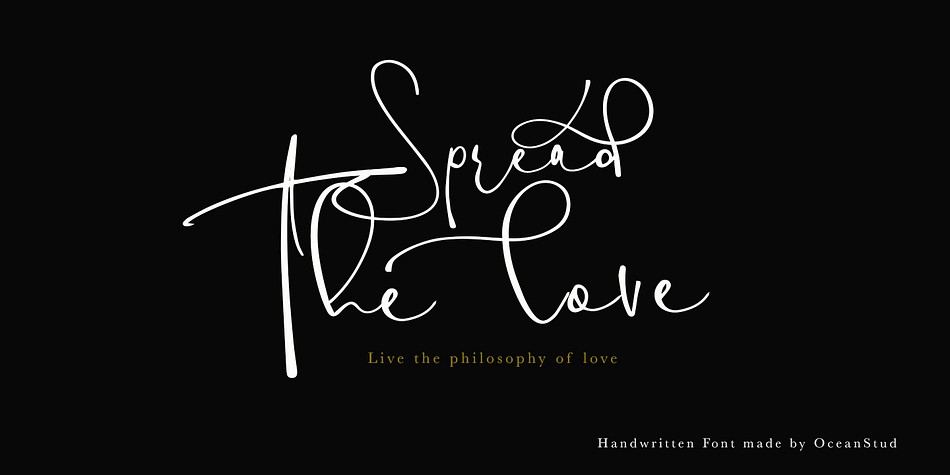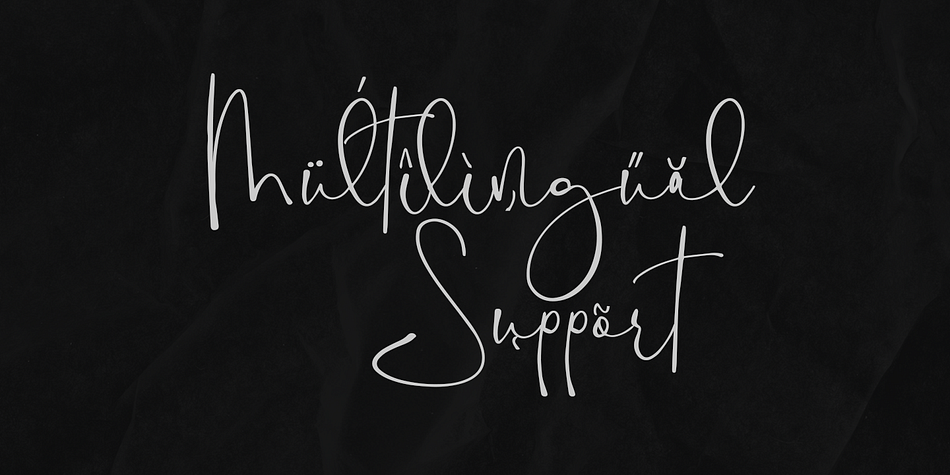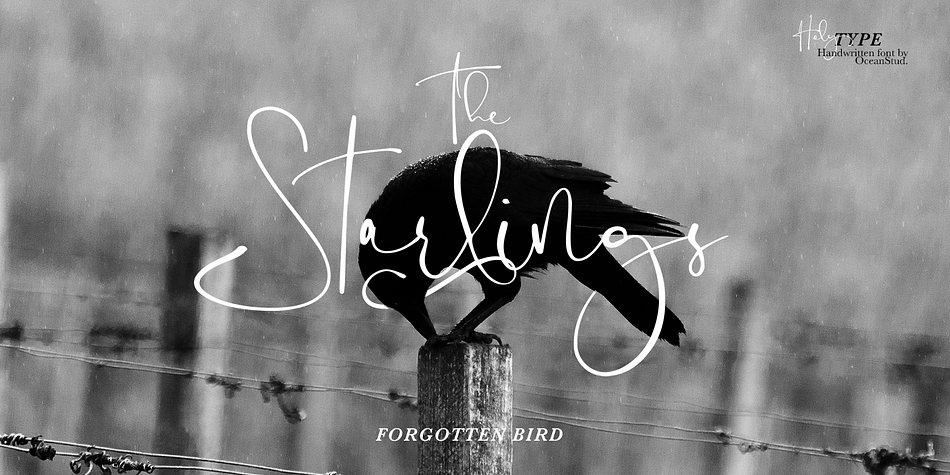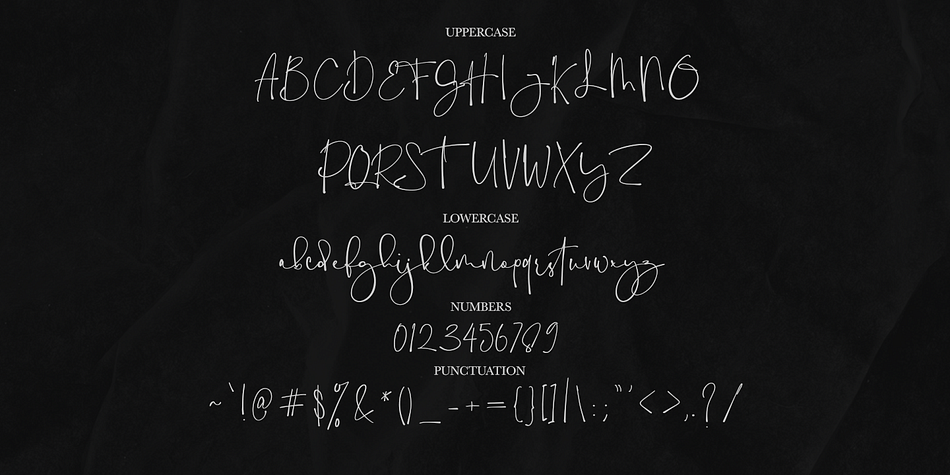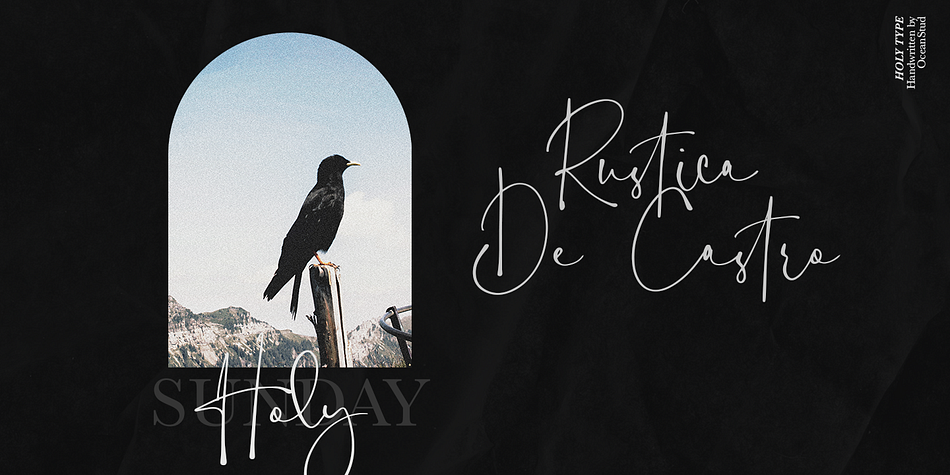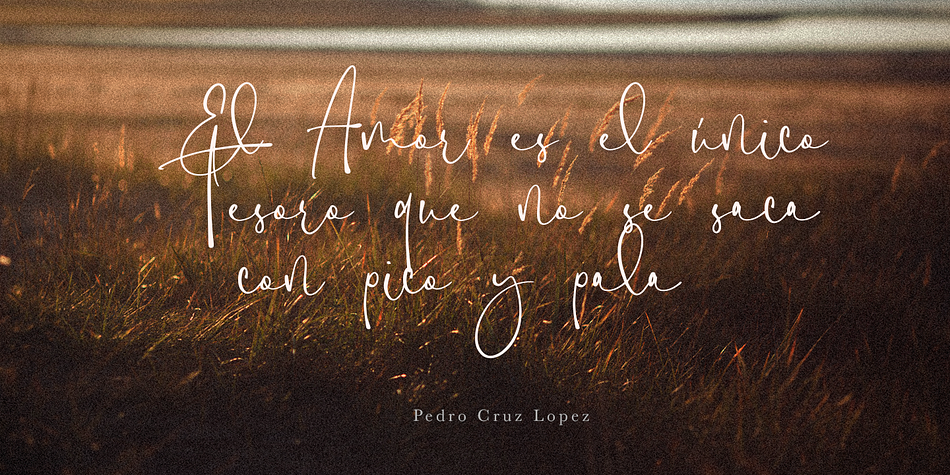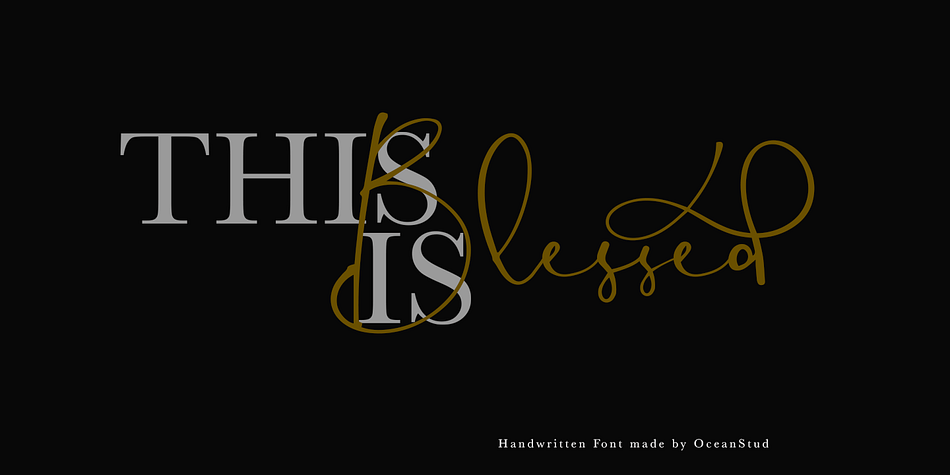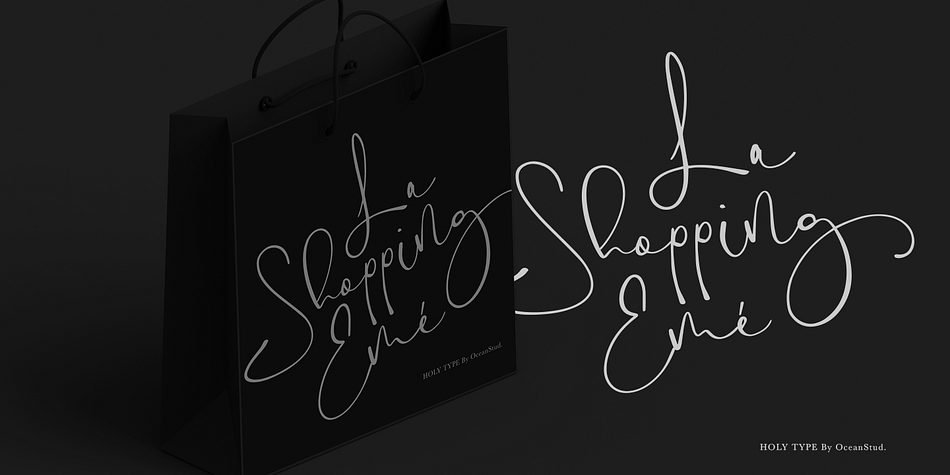
Holy Type
Designed by Laire Pawenang, Holy Type is a modern calligraphy font family published by Jolicia Type.
Introducing this is HOLY TYPE FONT a handwritten font inspired and dedicated or consecrated to God or a religious typeface , meaningfull of type.